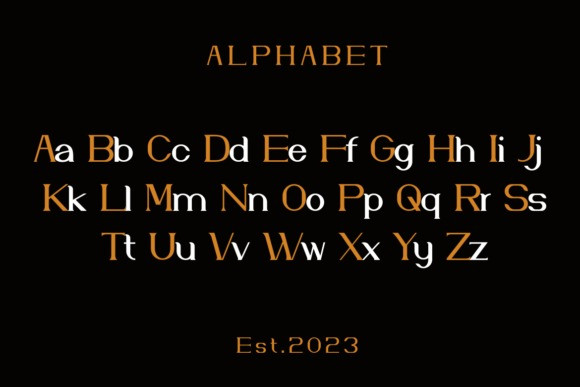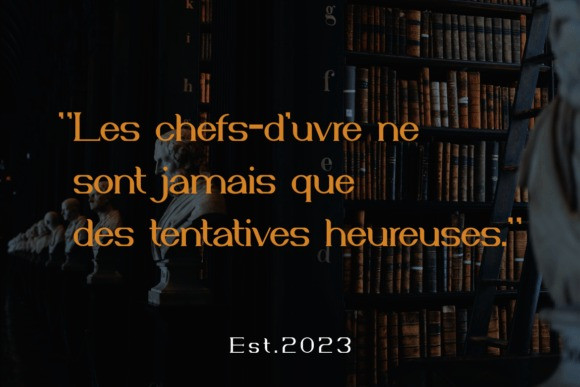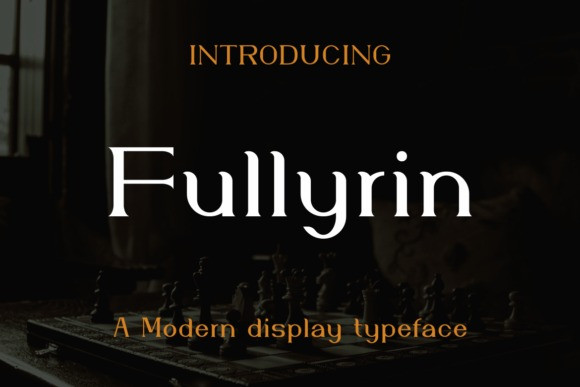
Fullyrin Font
Fullyrin Font is a modern display font. Natural and elegant, this font can be used on designs such as headlines, titles, headings, logos, branding, posters, invitations, books, and any other creative projects.